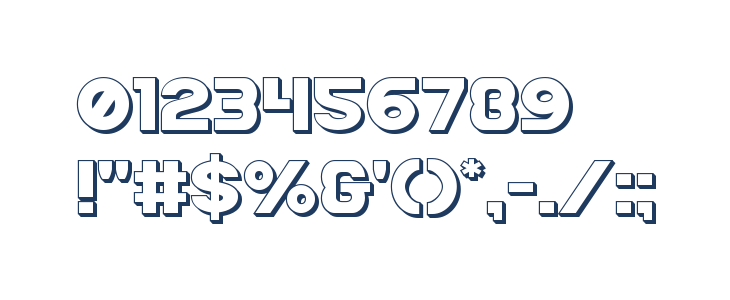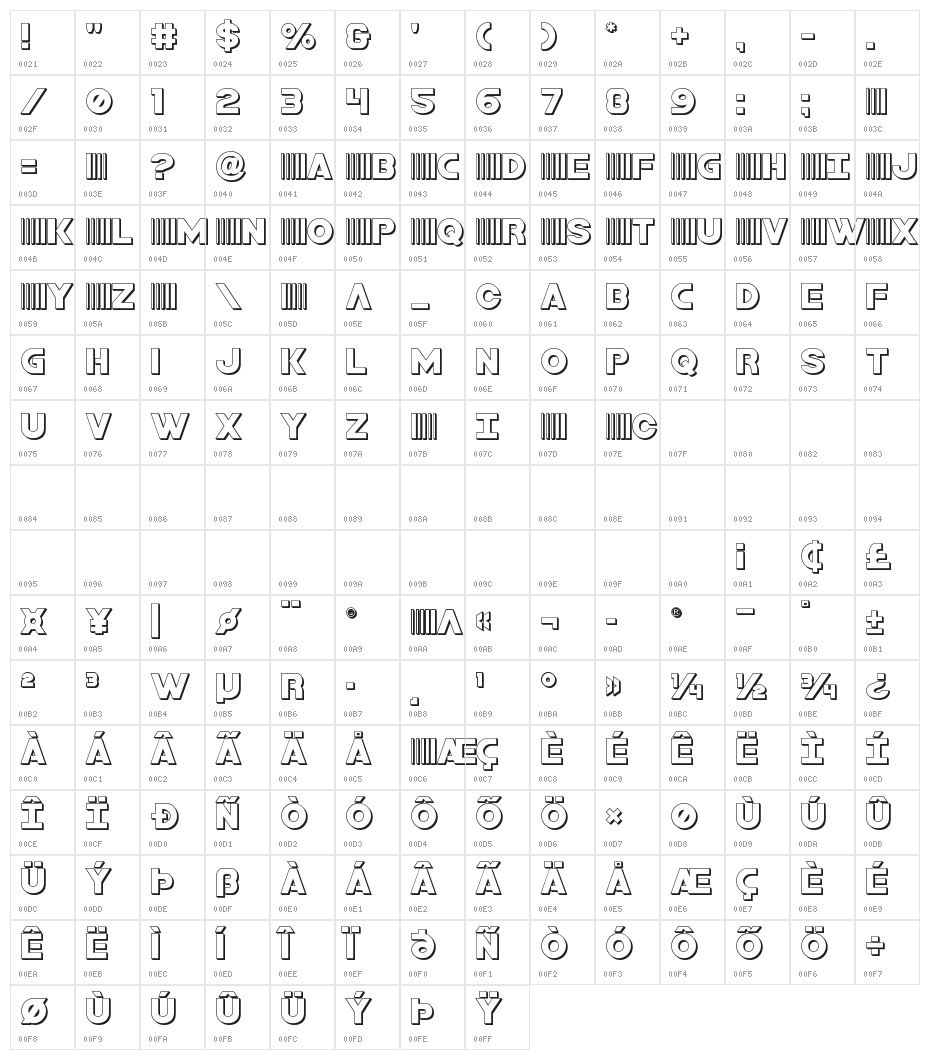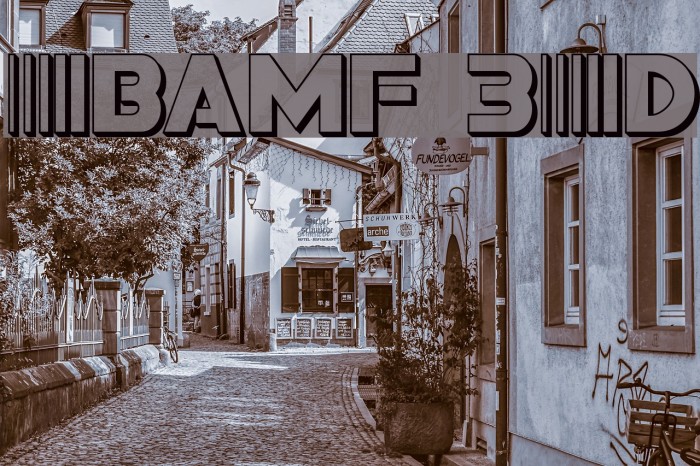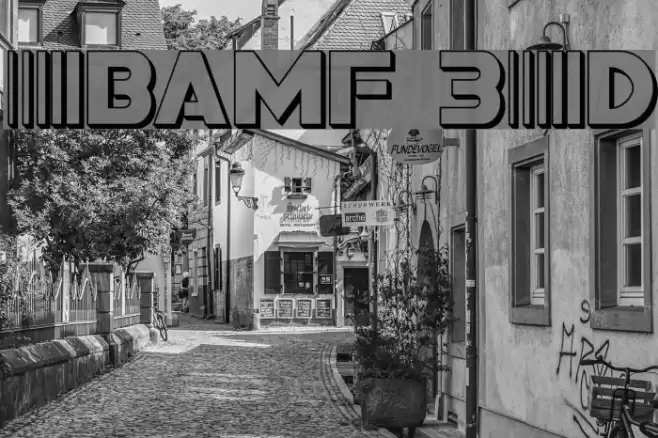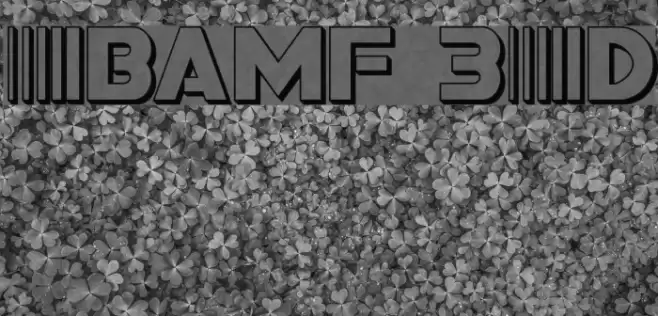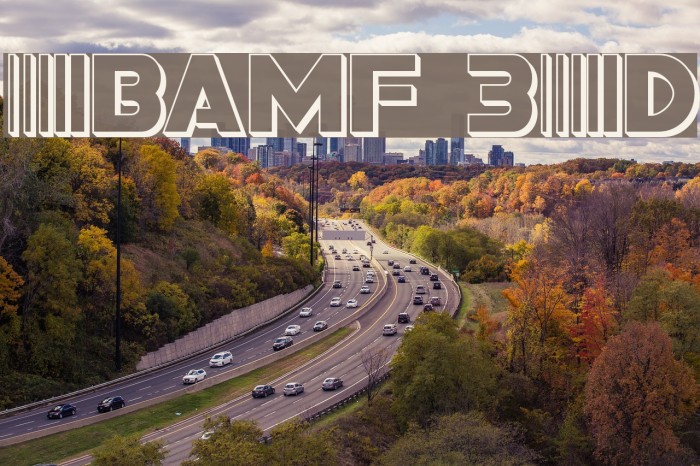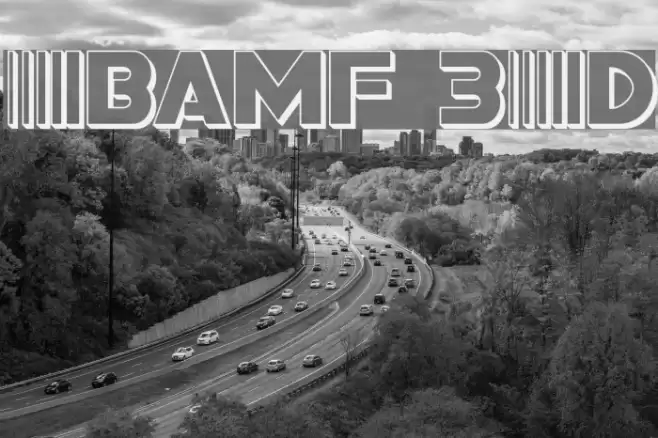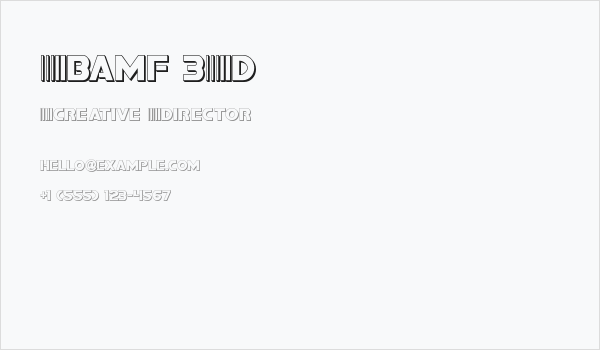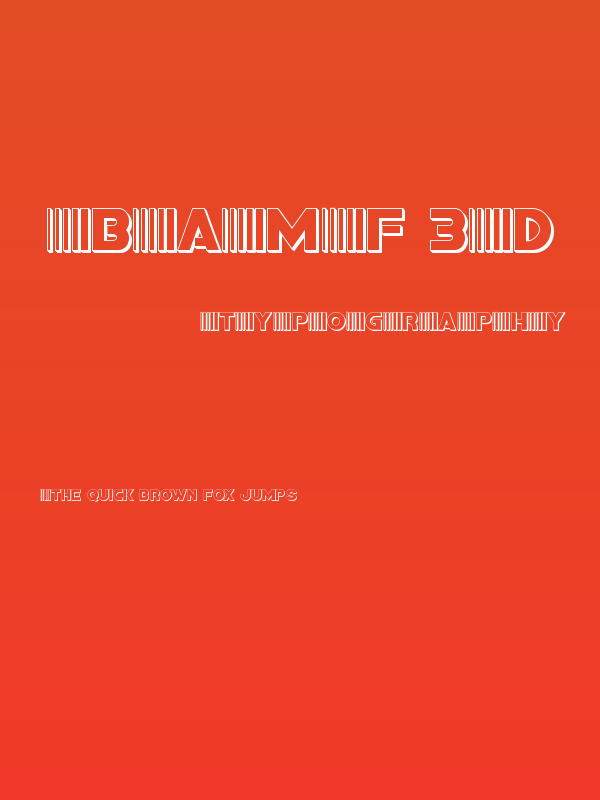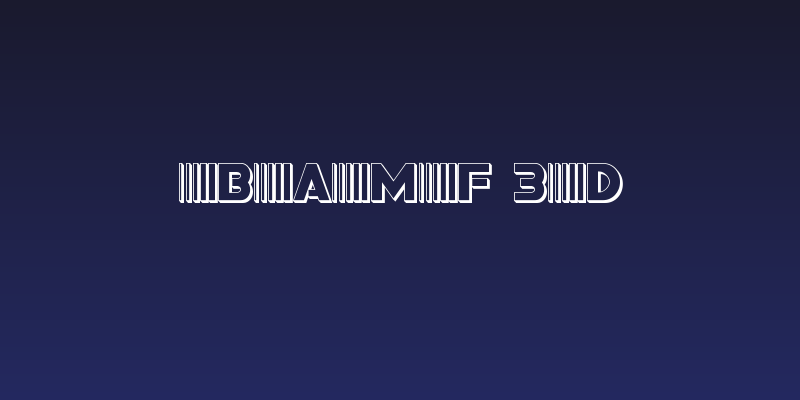
Bamf 3D Font
Bamf 3D Description
This font features a bold, three-dimensional design that gives each character a strong, impactful presence. The uppercase letters are outlined with a shadow effect, creating a sense of depth and dimension. The numbers and special characters follow the same style, maintaining consistency across the font. The overall look is modern and eye-catching, making it suitable for projects that require a standout typeface. The spacing between characters is normal, allowing for clear readability while still emphasizing the unique 3D effect.
| Proposed Projects | Ideal for posters, headlines, logos, and any design needing a bold, attention-grabbing font. |